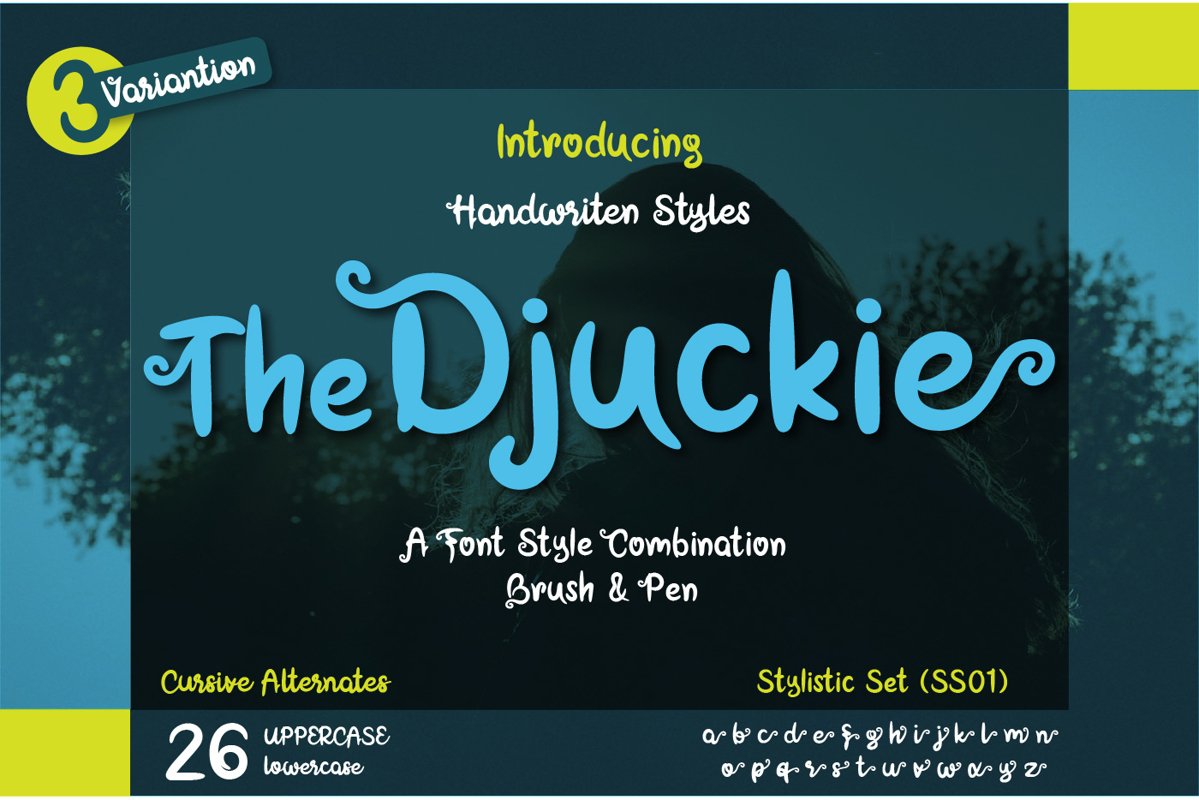
The Djuckie
The Djukie results out of a stunning pairing of a brush pen and pencil that makes it look incredibly endearing and authentic. The Djukie will look outstanding in any context, whether it’s being used on busy backgrounds or as a standalone headline!